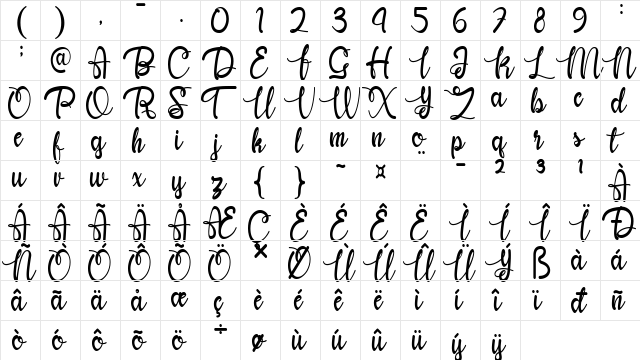
Yhulliantti Personal Use Only Regular Font Preview
Yhulliantti Personal Use Only Regular
Yhulliantti Personal Use Only Regular Font Details
Design Context for Yhulliantti Personal Use Only Typeface
Yhulliantti Personal Use Only is a composed and adaptable typeface that performs quietly and consistently across a wide range of design contexts.